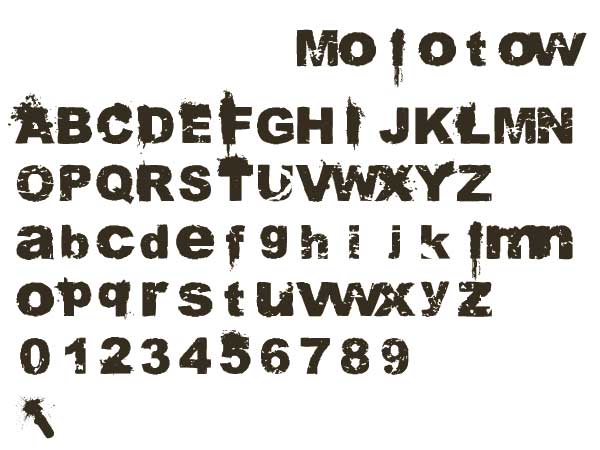
My first font tryout ever... basicly it's a modification of arial black
Capital + small letters, numbers + molotow bottle ( : )
Named it after the first part of my music project (molotow hurricane)
Isn't this just helvetica black with some grunge brushes over it?